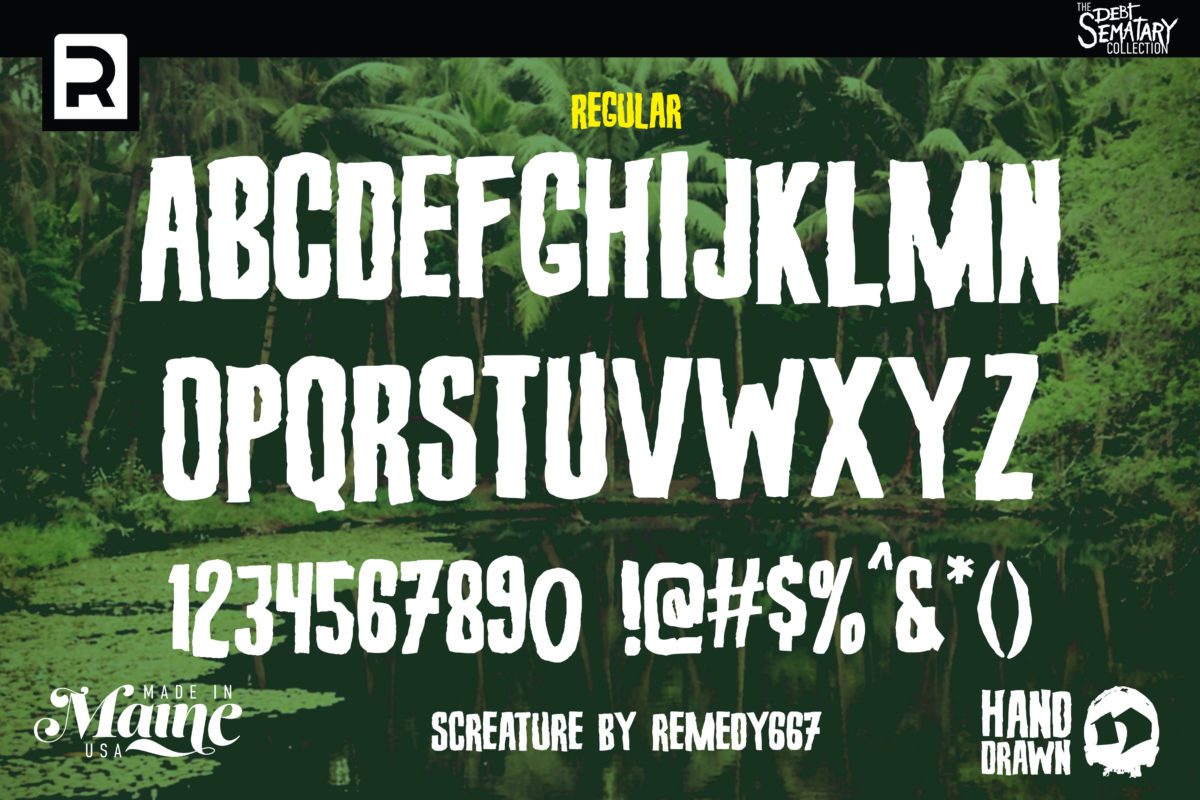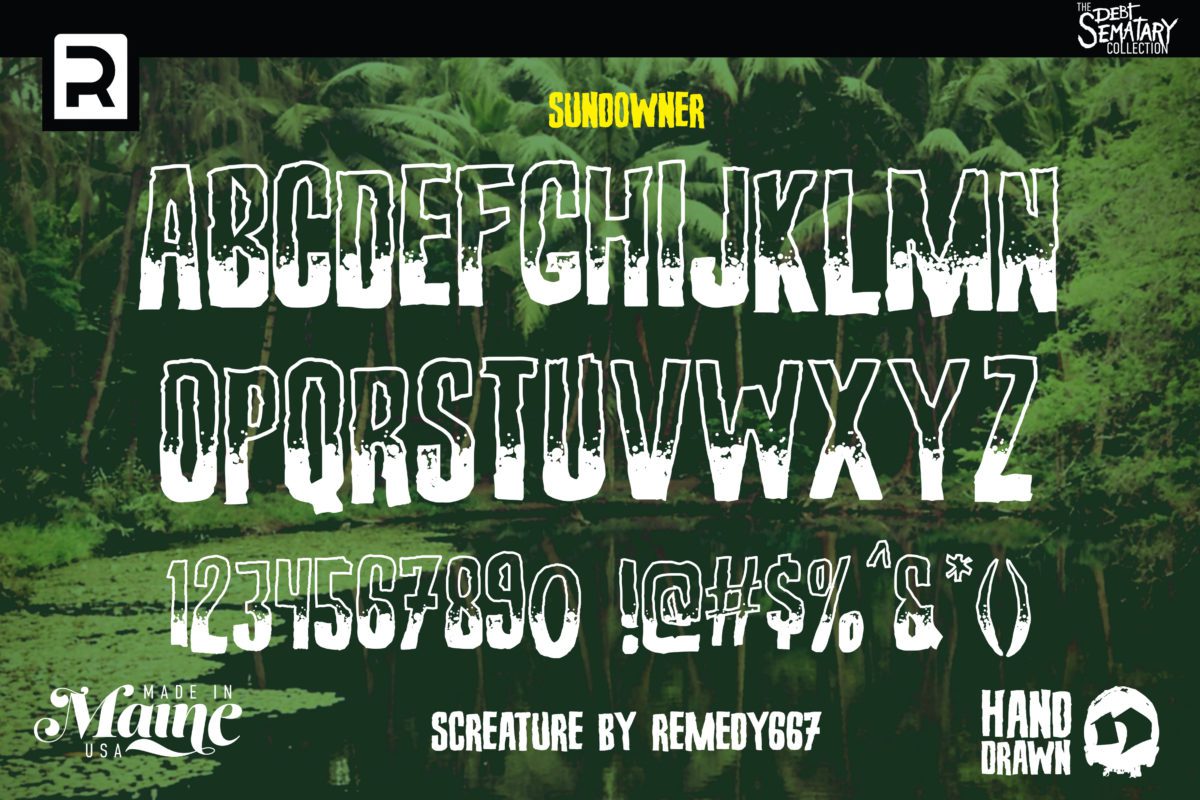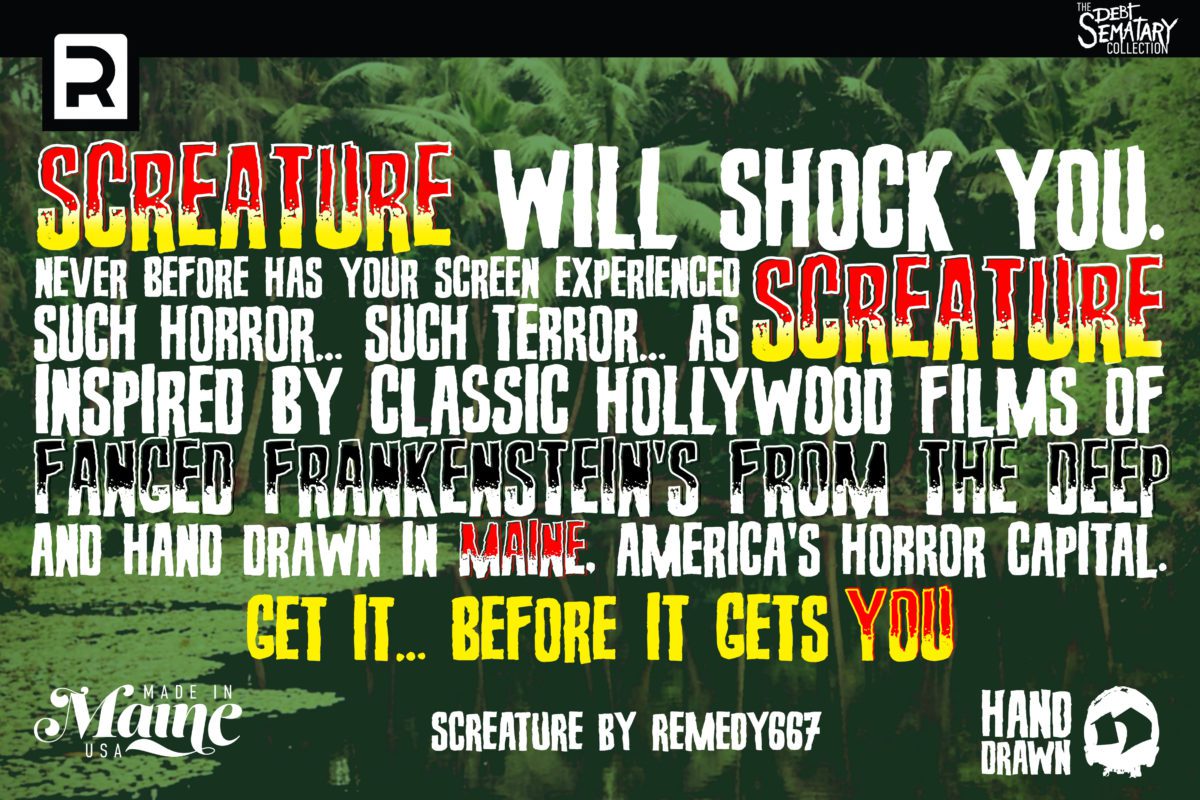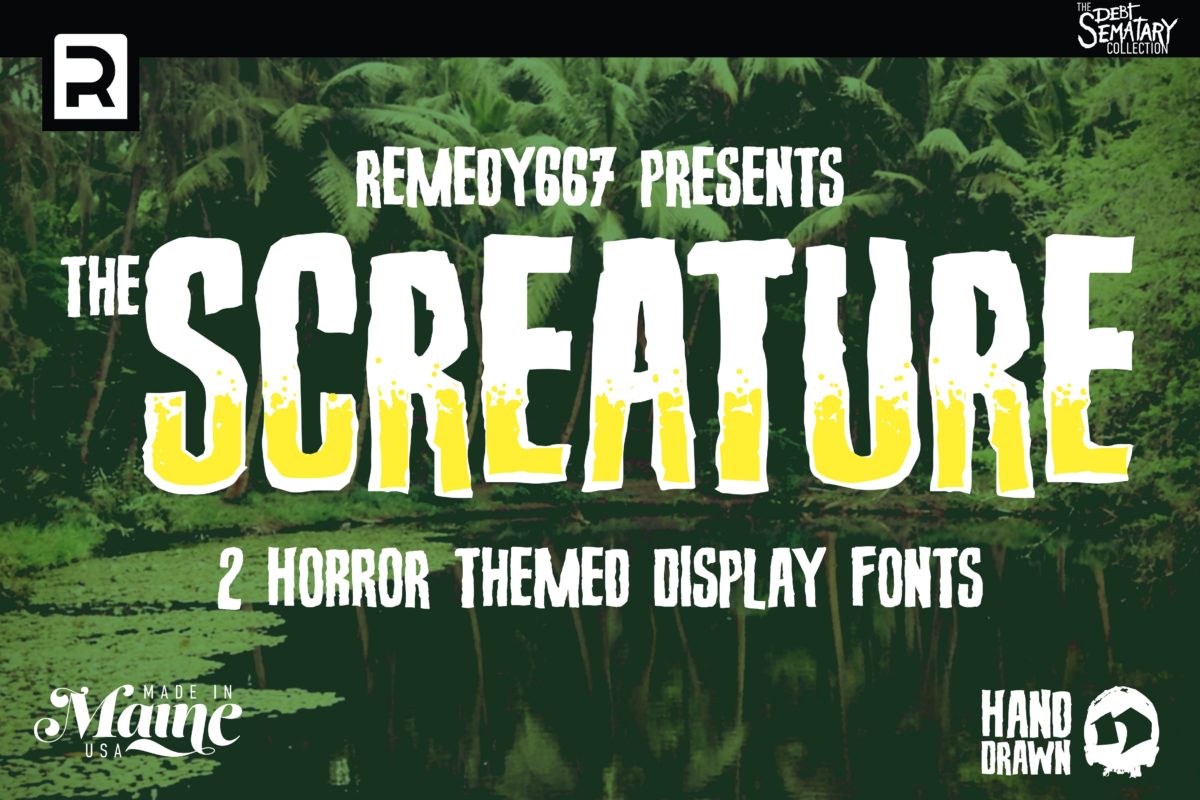
Screature will shock you. Never before has your screen experienced such horror… such terror… as Screature. Inspired by classic Hollywood films of Fanged Frankenstein’s from the Deep and hand-drawn in Maine, America’s horror capital. Screature will breathe new life into your designs, projects, and products. Screature. Get it… before it gets you.
Althought a great personality, Screature can be easily placed in many horror poster/book/music album contexts. From tight titling with its cool layers, to credits, as it suits (with plain) in smaller text size.